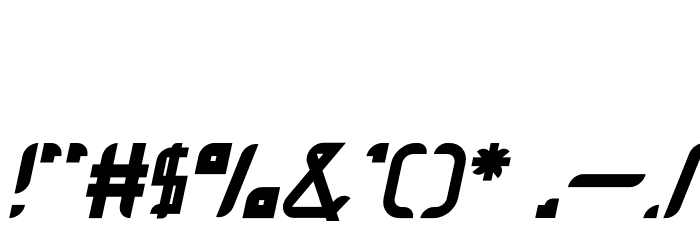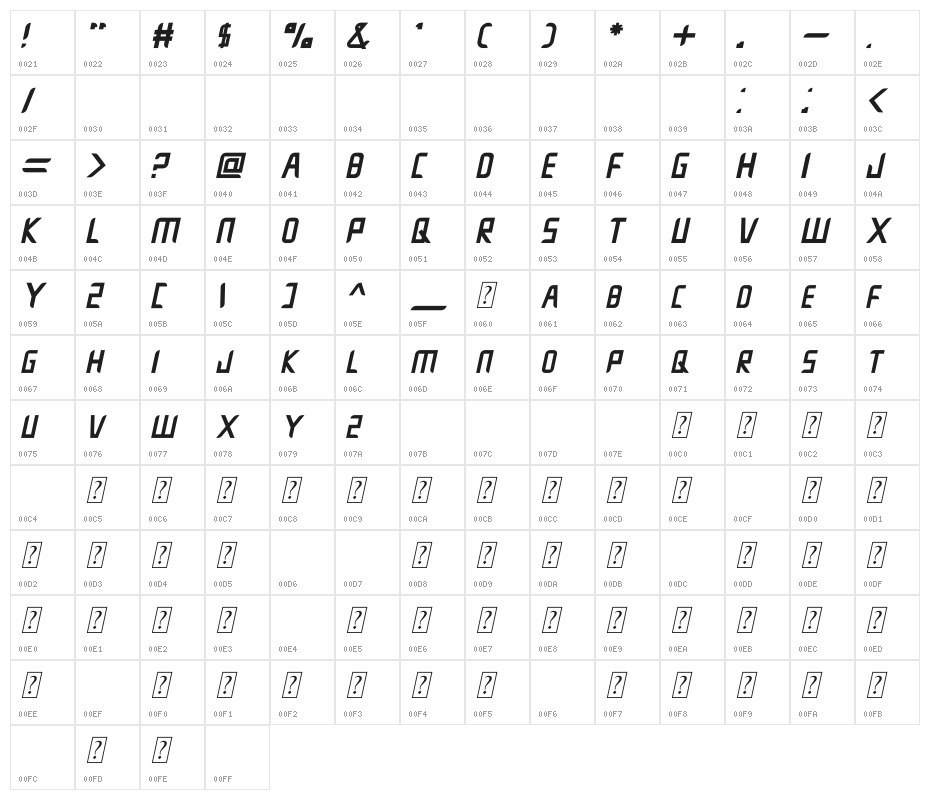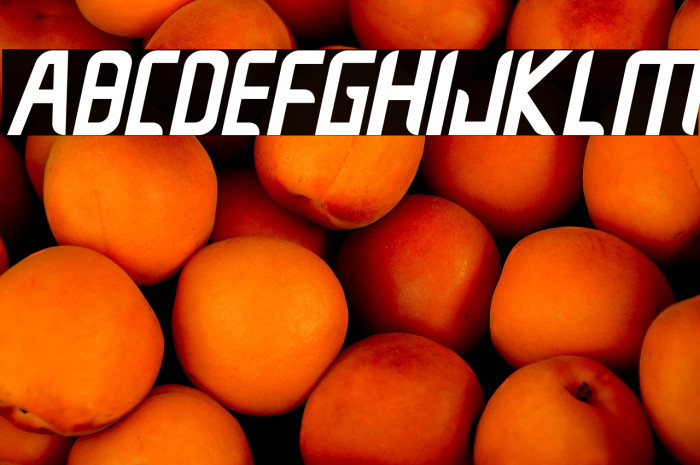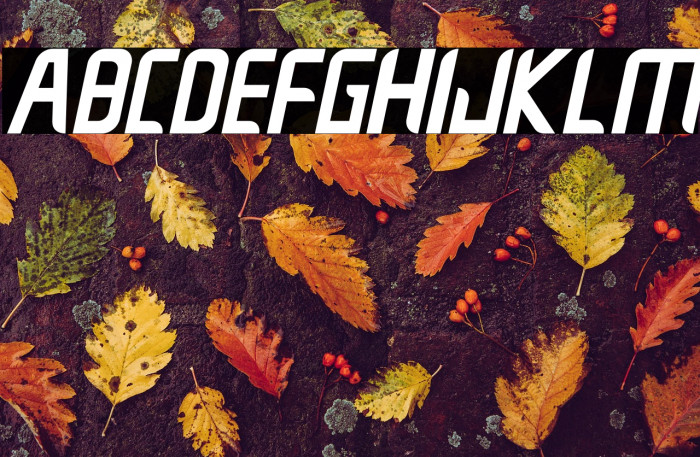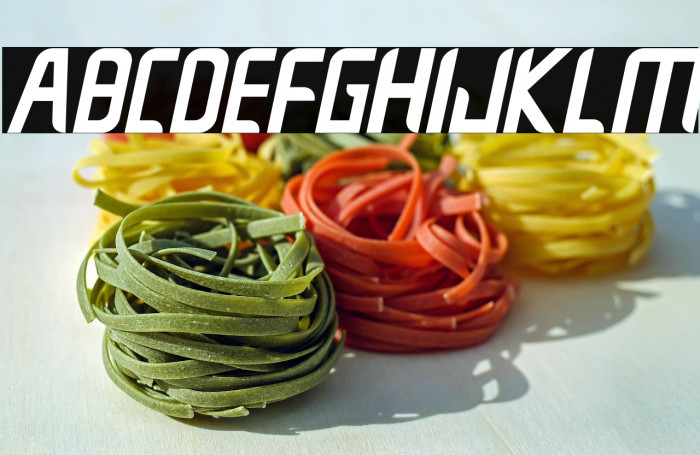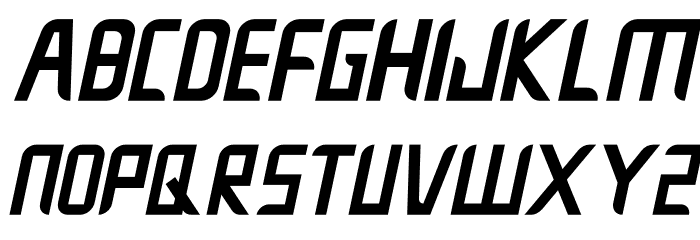
Crushnot Italic Font
Crushnot Italic Description
This font features a dynamic and modern design with a strong italic slant, giving it a sense of motion and energy. The characters are bold and slightly condensed, with sharp angles and clean lines that create a futuristic and sporty appearance. The uppercase and lowercase letters maintain a consistent style, while the numerals and special characters are designed to complement the overall aesthetic. The font's unique style makes it stand out, suitable for projects that require a contemporary and energetic look.